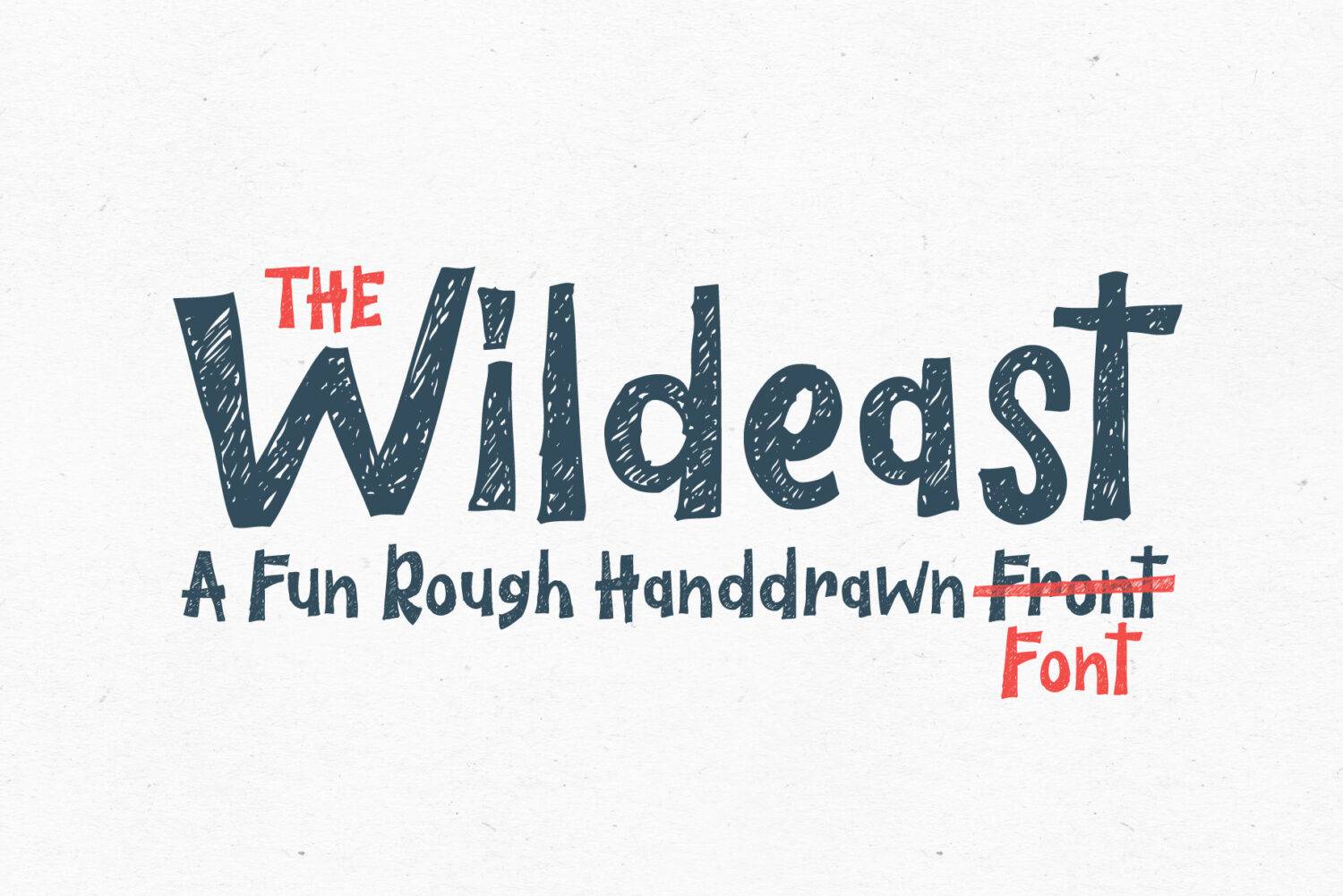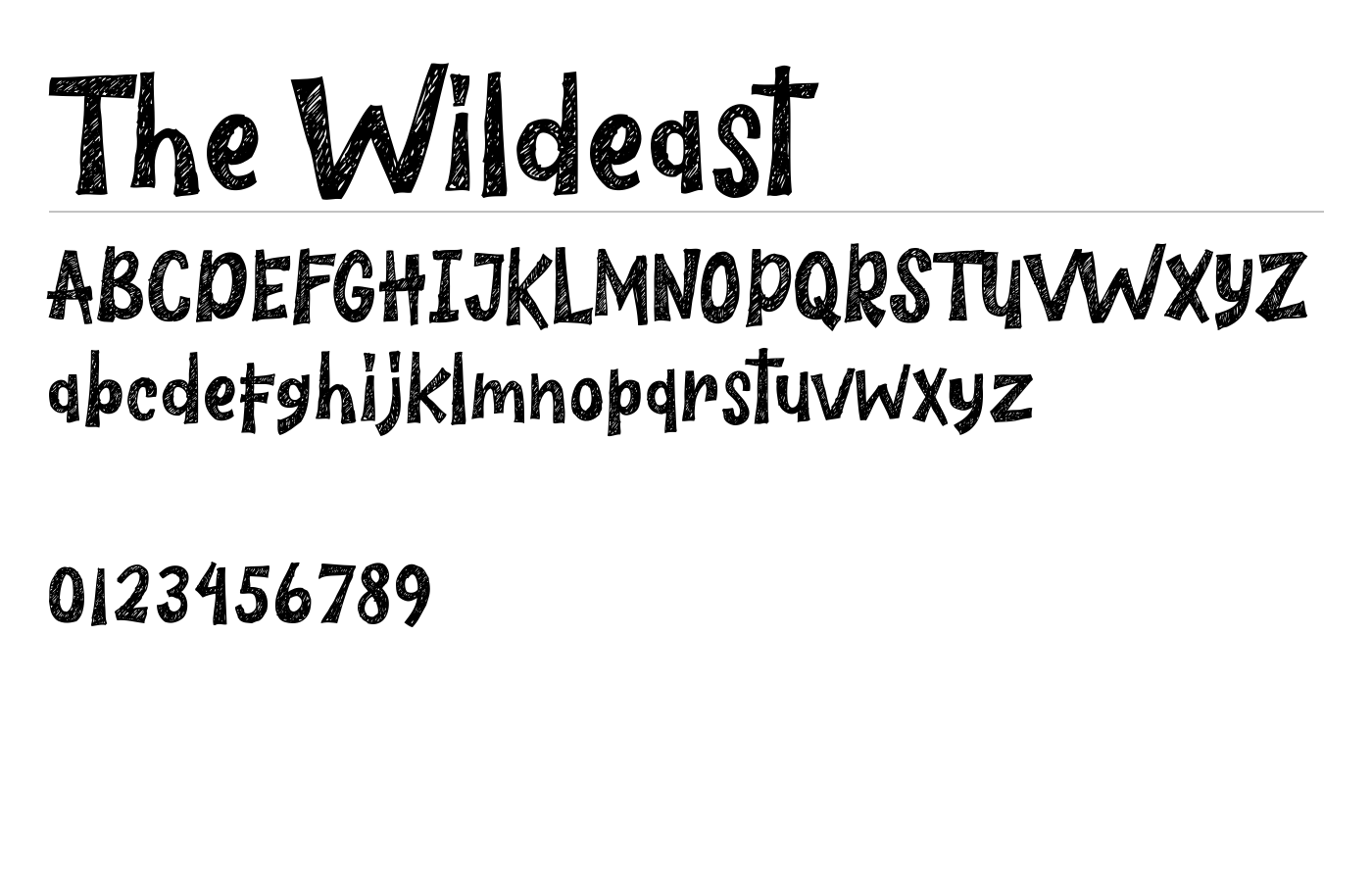
The Wildeast font is a playful, hand-drawn sans serif that features irregular, textured strokes giving it a casual, artistic vibe. With its quirky letterforms and slightly condensed, upright style, it works great for creative, informal projects like children’s books, posters, and branding that seeks a friendly, handcrafted feel. This font adds a unique, lively touch wherever a fun and approachable impression is needed.
The Wildeast Font
About The Wildeast Font
| Font family | The Wildeast Font |
| Designer | Trustha Studio |